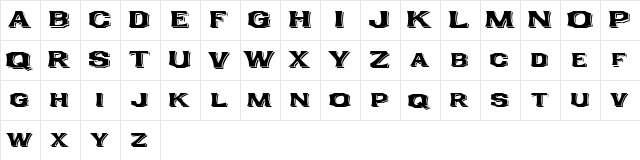
LHF Smalts Shadow Regular
Design Context for LHF Smalts Shadow Typeface
LHF Smalts Shadow brings ornamental detail and strong personality to headlines and identities, where visual impact matters more than quiet functionality.
Font Pairing: Pair with a clean neutral sans-serif for body copy to let LHF Smalts Shadow's character lead without overwhelming the composition.
Pro Tip: Use LHF Smalts Shadow exclusively at display sizes — it was designed to be seen, not read at length. Let a neutral companion handle body copy.